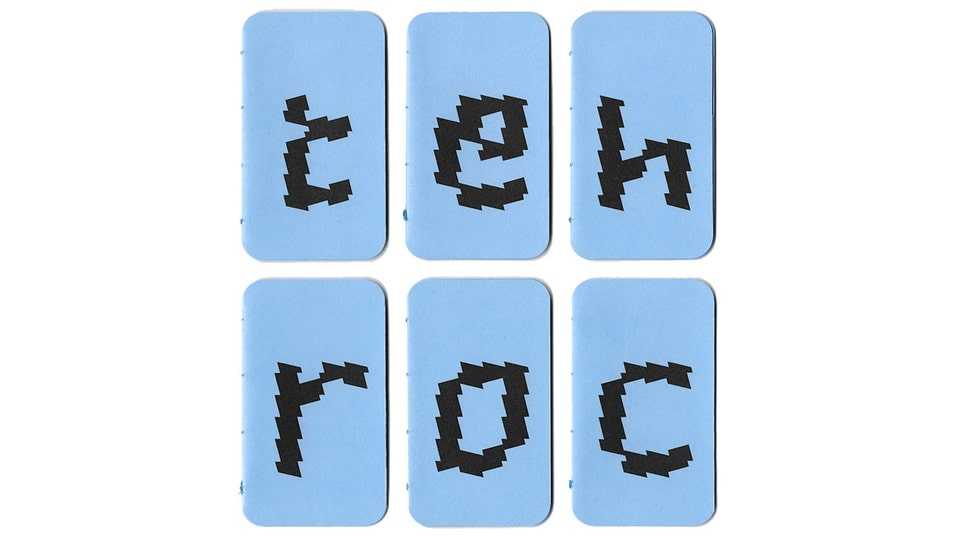
Download Tehroc font, a typeface based on the Tunisian crochet stitch grid. Tehroc has the particularity of not exceeding a certain x-height for capitals such as lowercase.
Designer: Camille Wisniewski